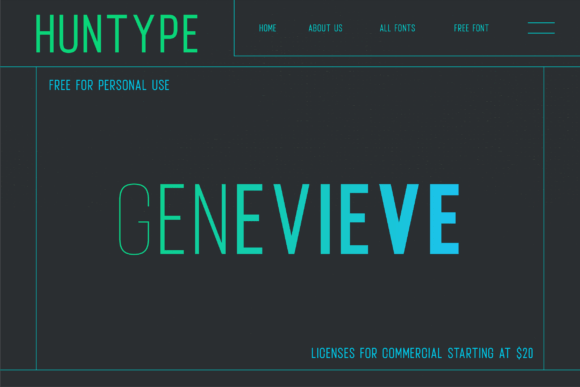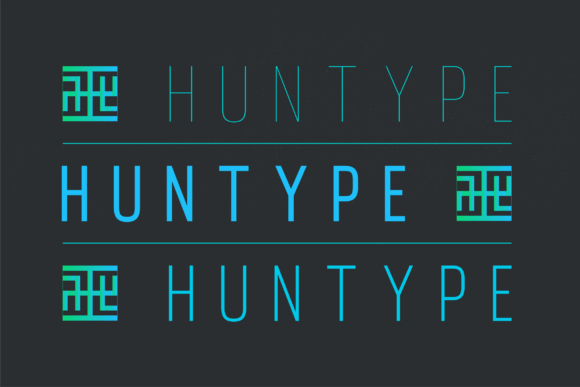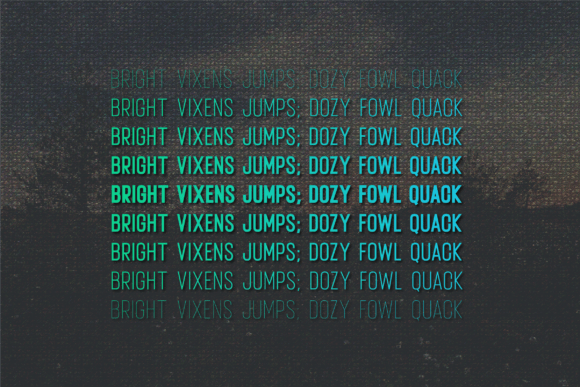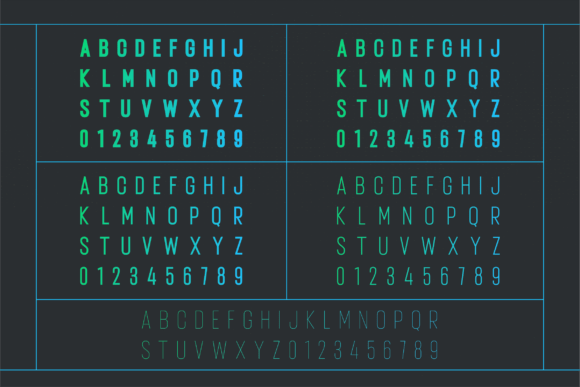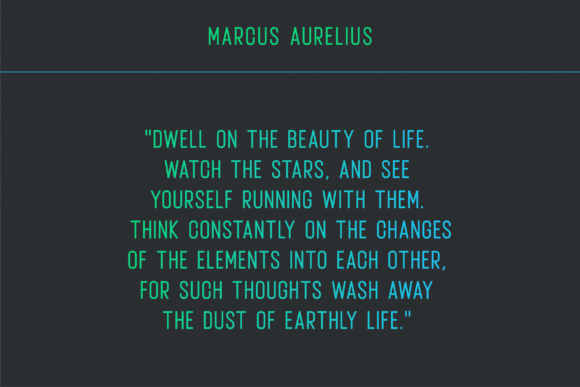
I still remember the countless hours I spent searching for the perfect font for a client’s branding project. The client wanted a font that exuded elegance, modernity, and versatility, but I was struggling to find one that checked all the boxes. That was until I stumbled upon the Genevieve sans serif family. It’s been a game-changer for me and my design projects, and I’m excited to share my experience with you. 😊
Introducing Genevieve: The Ultimate Font Family
The Genevieve sans serif family is a meticulously crafted font family that epitomizes elegance, modernity, and versatility. With its five distinct weights—THIN, LIGHT, REGULAR, BOLD, and BLACK—the Genevieve family offers a wide range of creative possibilities, making it the perfect choice for designers and content creators. Whether you’re aiming for a subtle and delicate touch or a bold and impactful statement, this font family’s seamless blend of sophistication and contemporary style ensures your projects will shine with distinction.
What I Love About Genevieve ✨
- ✅ Versatility: With five weights to choose from, Genevieve can be used for a wide range of projects, from elegant branding to bold headlines.
- ✅ Elegant and Modern: Genevieve’s sleek design and clean lines make it perfect for projects that require a touch of sophistication.
- ✅ Easy to Read: Genevieve’s clear and legible design ensures that your text is easy to read, even at small sizes.
- ✅ OpenType Features: Genevieve supports OpenType features, including glyphs and stylistic alternates, giving you even more creative control.
- ⚠️ Limited Language Support: Genevieve currently supports a limited number of languages, so be sure to check the font’s capabilities before using it for a project.
- ⚠️ No Italic Weights: Genevieve does not currently offer italic weights, which may be a limitation for some designers.
The Designer Inspiration Behind Genevieve
The Genevieve sans serif family was designed with the goal of creating a font that is both elegant and modern. The designer’s inspiration came from the need for a font that can be used for a wide range of projects, from elegant branding to bold headlines. The result is a font family that is both versatile and sophisticated.
| Font Name | Genevieve Font |
| Author | Huntype |
| What is the Genevieve sans serif family? | The Genevieve sans serif family is a meticulously crafted font family that epitomizes elegance, modernity, and versatility. |
| What weights are available in the Genevieve family? | The Genevieve family offers five distinct weights: THIN, LIGHT, REGULAR, BOLD, and BLACK. |
| Does Genevieve support OpenType features? | Yes, Genevieve supports OpenType features, including glyphs and stylistic alternates. |
| Is Genevieve suitable for body text? | Yes, Genevieve is suitable for body text, thanks to its clear and legible design. |